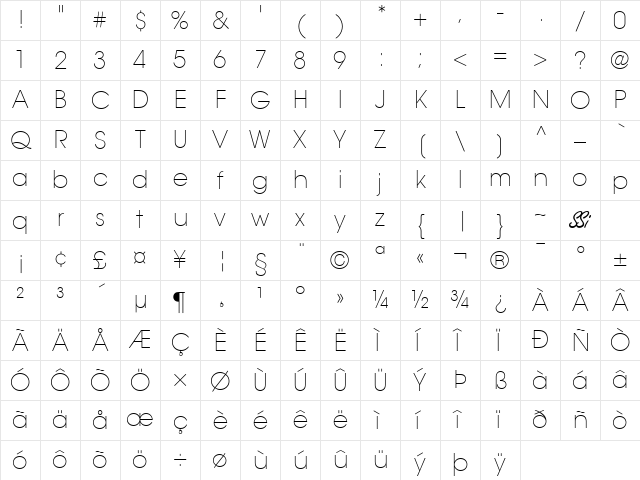
Complete Trendex Light SSi Extra Light glyph index. Displaying only characters natively supported by Trendex Light SSi Extra Light font.
Trendex Light SSi is a composed and adaptable typeface that performs quietly and consistently across a wide range of design contexts. Its slender proportions lend an understated elegance to any composition.